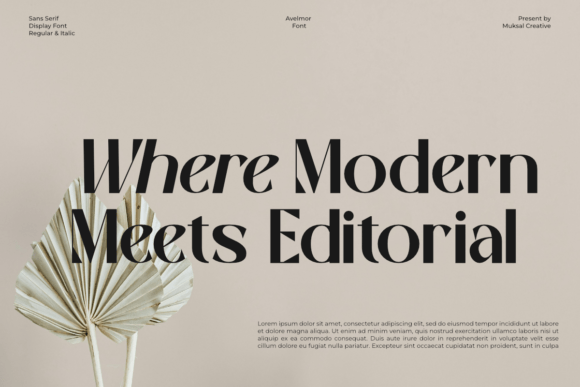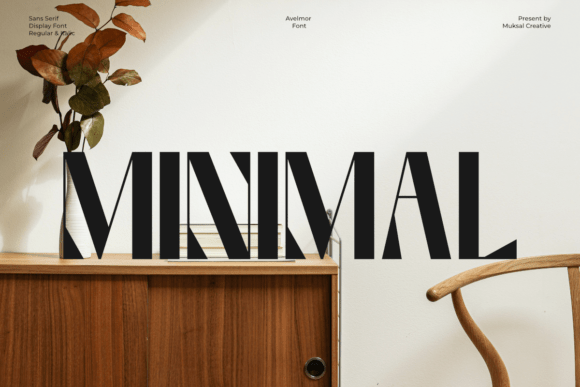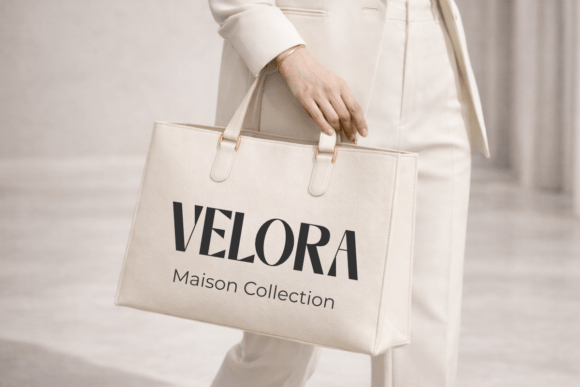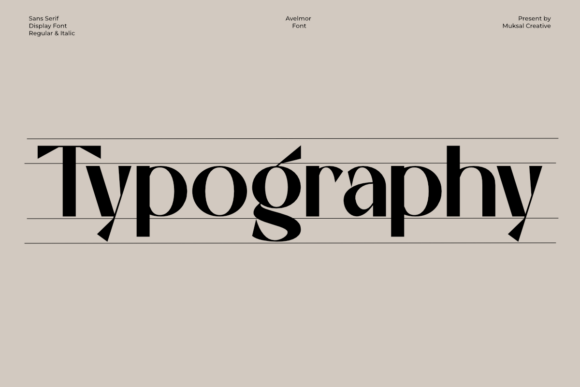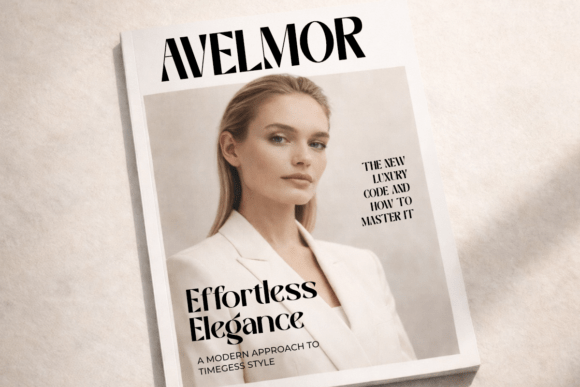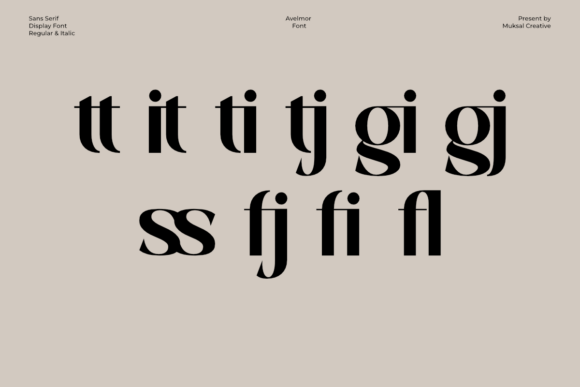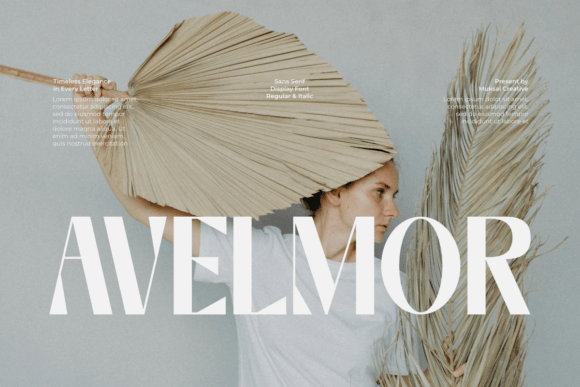
Avelmor Font: Elevate Your Designs with Timeless Elegance
In the world of typography, a font can make or break the visual impact of a design. For designers and crafters seeking to elevate their editorial and high-fashion projects, Avelmor Font is an exceptional choice. Presented by Muksal Creative, Avelmor is a stunning sans-serif display font that embodies “Timeless Elegance” in every letter.
Architectural yet Ethereal
Avelmor’s design is characterized by high-contrast strokes and razor-sharp terminals, creating a unique blend of architectural and ethereal qualities. This distinctive feature set allows Avelmor to command attention in various applications, from magazine covers and luxury branding to sophisticated signage. The font’s bold, condensed structure makes it perfect for large-scale headlines where clarity meets high-end style.
Versatility for Modern Layouts
Avelmor Font is available in both Regular and Italic styles, offering versatility for modern layouts that require a clean yet dramatic aesthetic. This flexibility makes it an excellent choice for designers who need to create visually appealing text that adapts to different contexts. Whether you’re working on a fashion magazine, a luxury brand’s advertising campaign, or an elegant signage project, Avelmor provides the perfect blend of style and legibility.
Key Features of Avelmor Font
• High-contrast strokes: Avelmor’s high-contrast strokes create a dramatic and elegant appearance, perfect for headlines and titles.
• Razor-sharp terminals: The font’s razor-sharp terminals add a touch of sophistication and architectural flair to any design.
• Bold, condensed structure: Avelmor’s bold, condensed structure makes it ideal for large-scale headlines where clarity and style are paramount.
• Available in Regular and Italic styles: The font’s versatility is enhanced by its two styles, allowing designers to experiment with different looks and moods.
Perfect for High-End Designs
Avelmor Font is specifically designed to excel in high-end designs, including:
• Editorial design: Elevate your magazine covers, articles, and editorials with Avelmor’s elegant and sophisticated appearance.
• High-fashion branding: Avelmor’s luxurious feel makes it an excellent choice for fashion brands seeking to convey high-end style and sophistication.
• Luxury signage: The font’s bold, condensed structure and elegant appearance make it perfect for signage projects that require a touch of luxury and refinement.
Why Choose Avelmor Font?
With Avelmor Font, designers and crafters can:
• Elevate their designs: Avelmor’s timeless elegance and sophisticated appearance instantly elevate any design, making it perfect for high-end projects.
• Enhance brand identity: The font’s luxurious feel and versatility make it an excellent choice for brands seeking to establish a strong visual identity.
• Streamline workflow: Avelmor’s availability in both Regular and Italic styles simplifies the design process, allowing designers to work more efficiently.
Avelmor Font is a stunning sans-serif display font that embodies timeless elegance and sophistication. Its unique blend of high-contrast strokes, razor-sharp terminals, and bold, condensed structure makes it perfect for high-end designs, including editorial and high-fashion projects. With its versatility, elegance, and clarity, Avelmor is an excellent choice for designers and crafters seeking to elevate their designs and create visually stunning text.